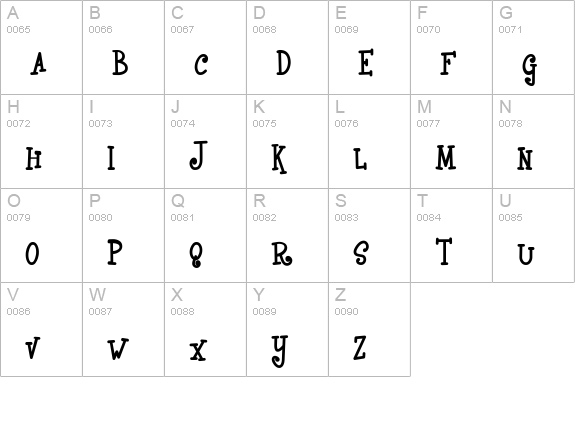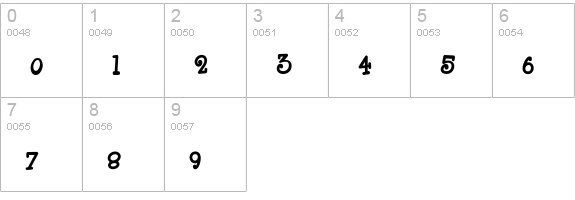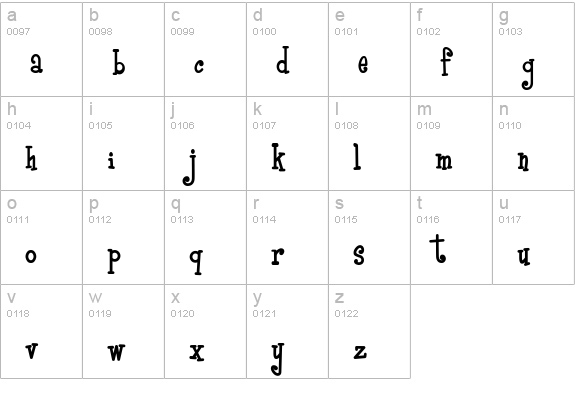
BoyzRGross Font Details
BoyzRGross font is a playful and quirky typeface that adds a touch of fun and mischief to your designs. With its bold and rounded letters, this font exudes a sense of youthful energy and creativity. Perfect for projects targeting a younger audience or for adding a whimsical touch to your designs. Best of all, BoyzRGross font is completely free to download at FontsMarket.com. Whether you're working on a school project, creating invitations for a birthday party, or designing a fun poster, this font will surely make your text stand out. Embrace the playful side of design with BoyzRGross font and let your creativity run wild!